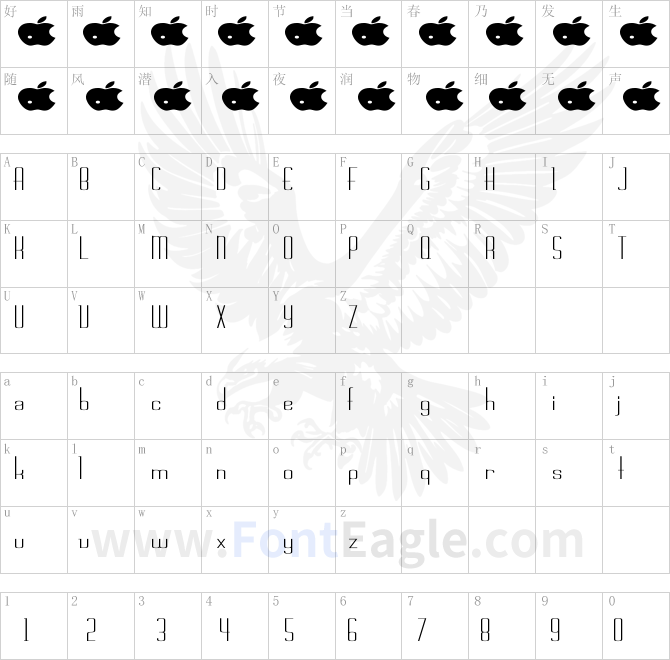
Rschasline-Ex is a great font, widely used in graphic design, single-page menu design, poster design and other fields, and is deeply loved by designers.Rschasline-Ex download.